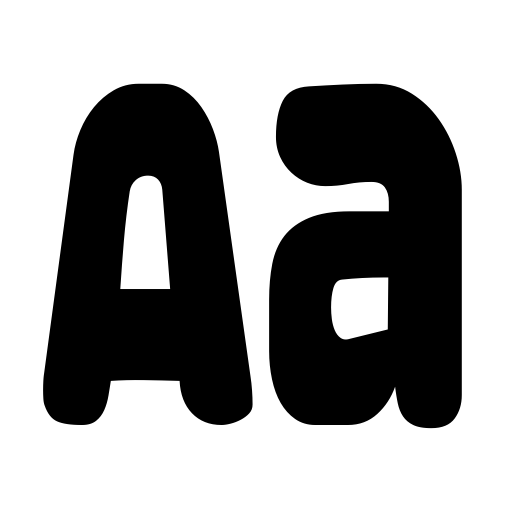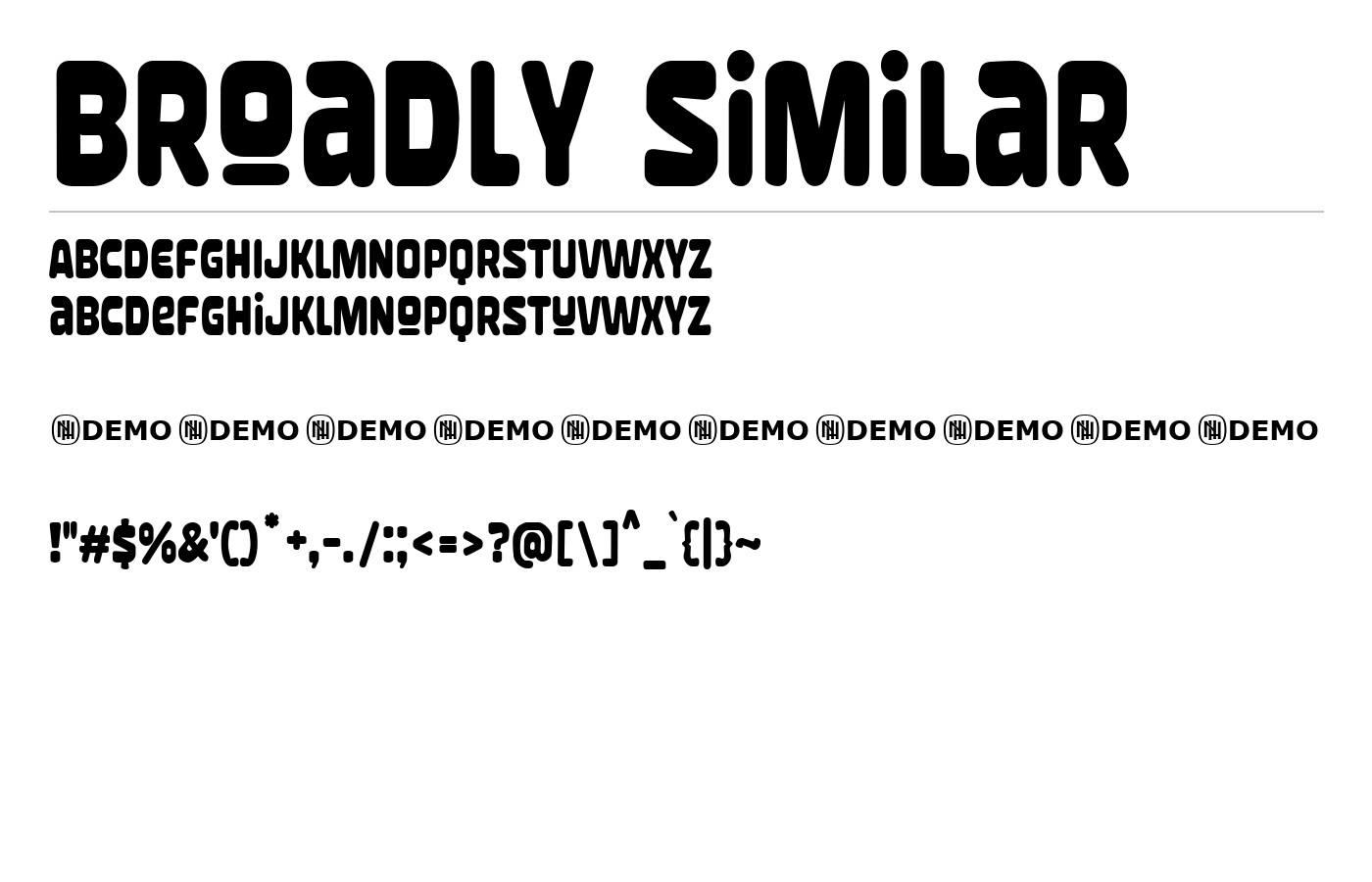
Broadly Similar Font is a bold, rounded sans serif typeface with a playful and modern feel. Its thick strokes, condensed width, and high x-height create a strong, approachable presence perfect for eye-catching headlines and branding. This font works well for creative projects, logos, and packaging that need a friendly yet impactful look.
Broadly Similar Font
About Broadly Similar Font
| Font family | Broadly Similar Font |
| Designer | Ali Hamidi |